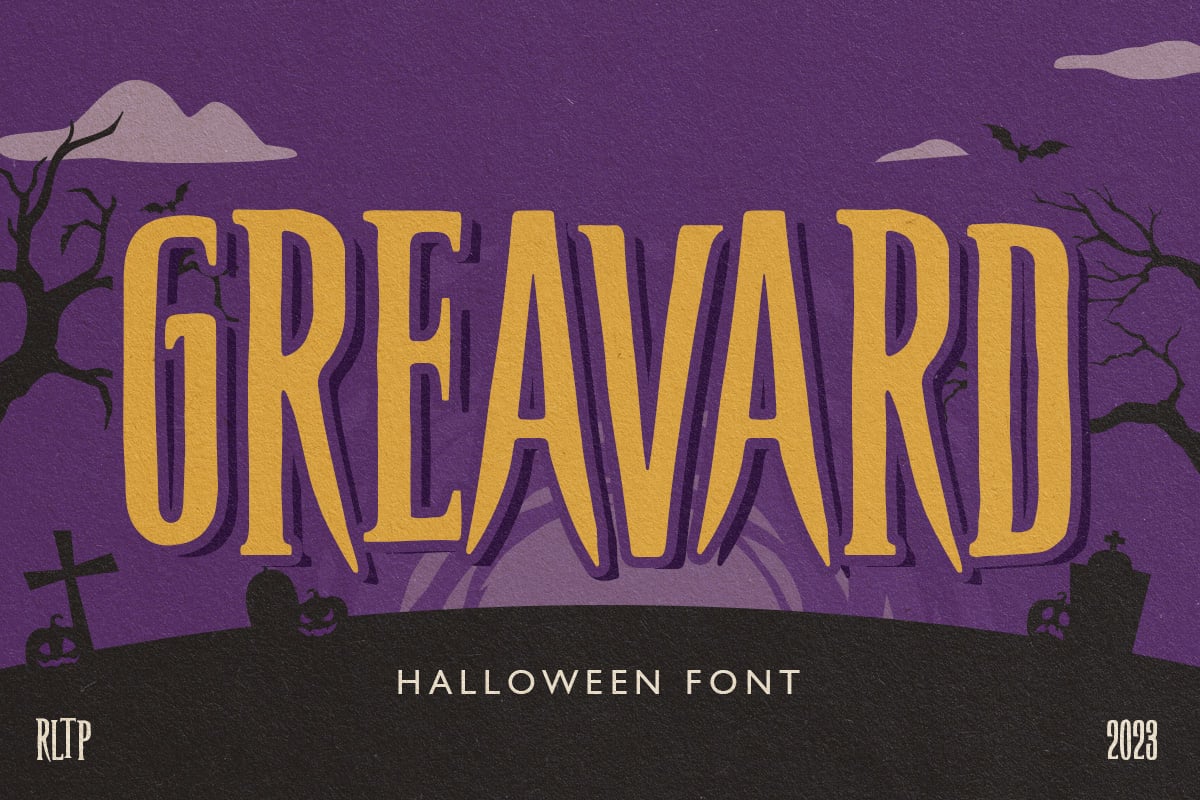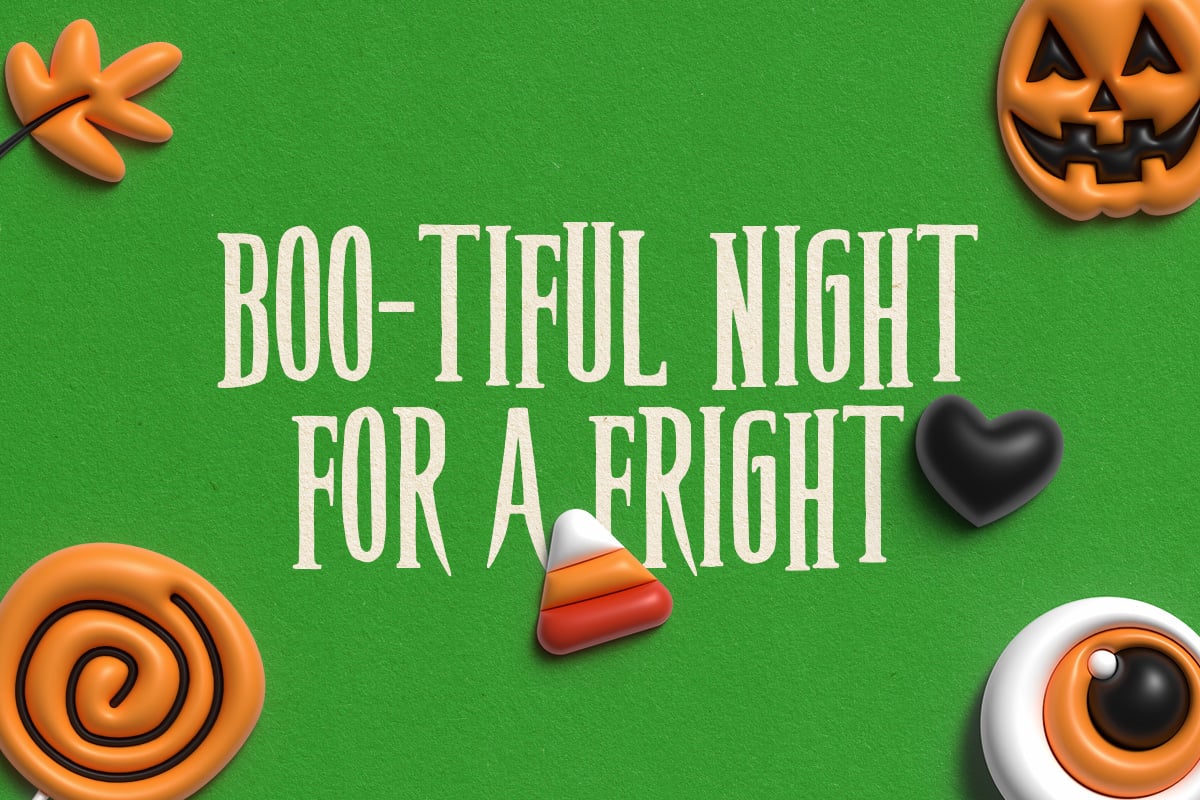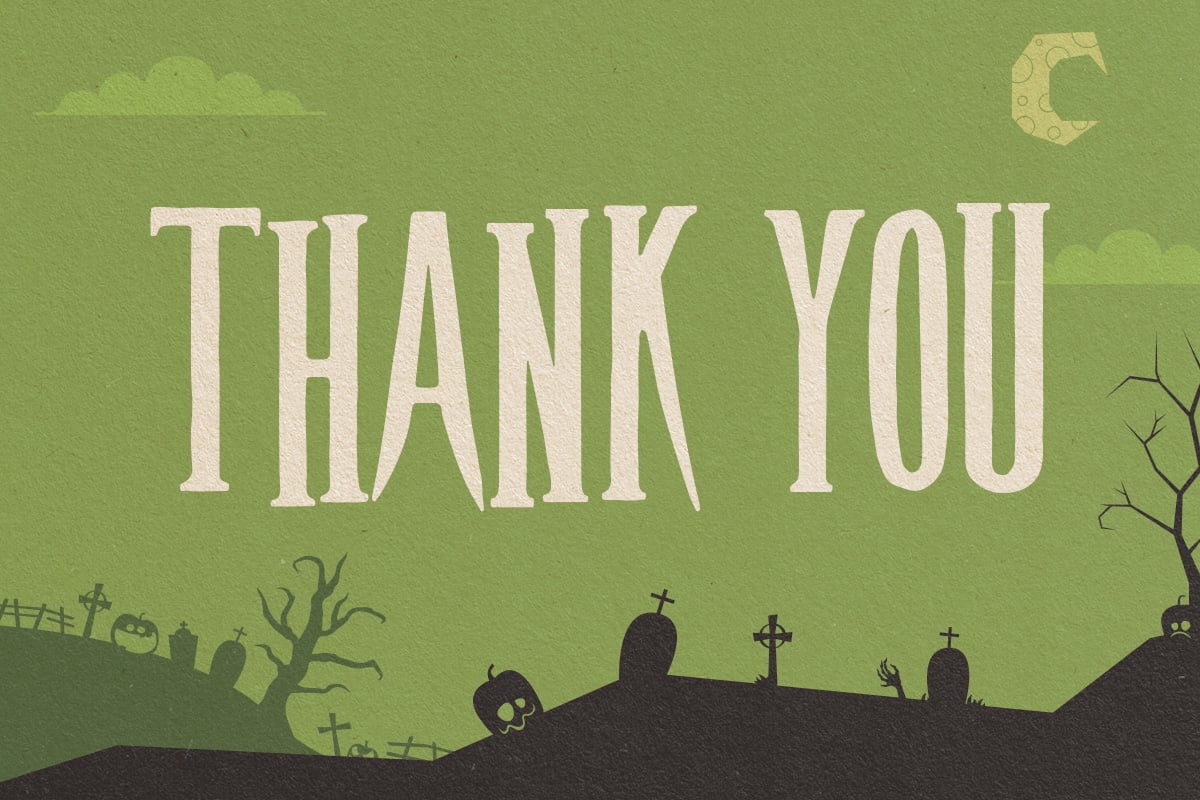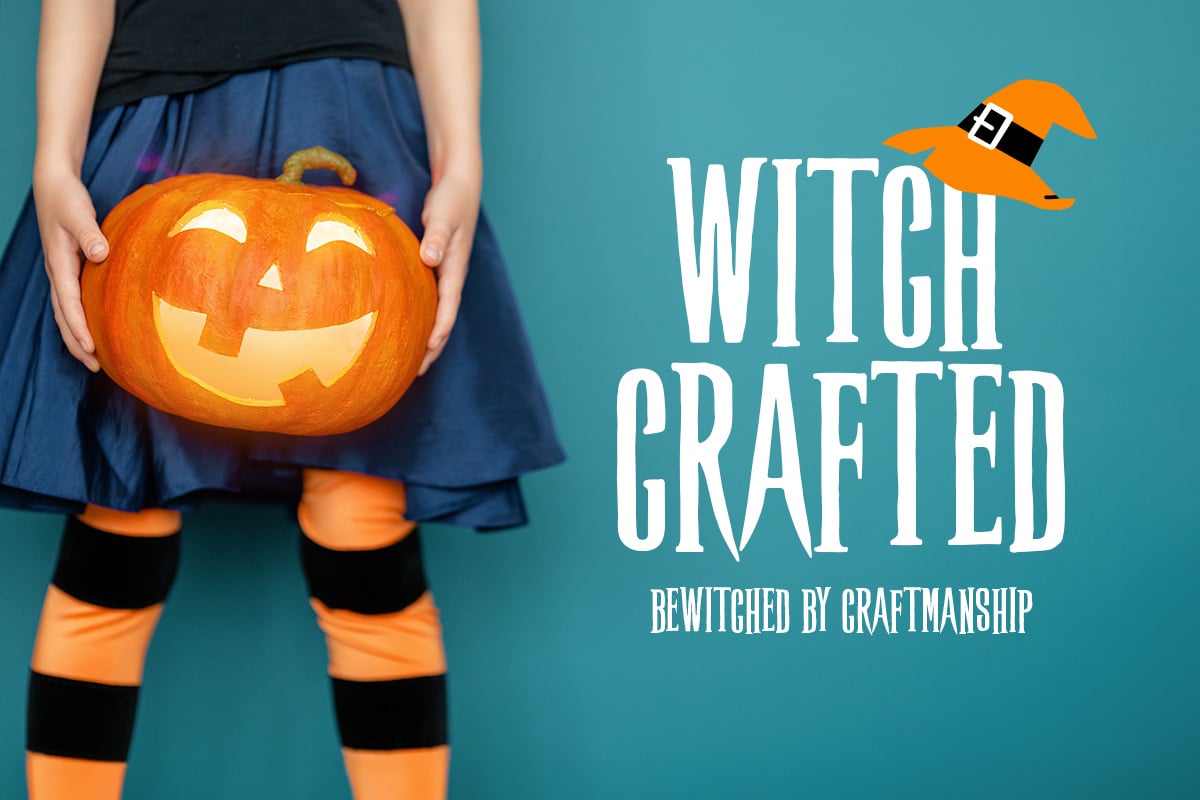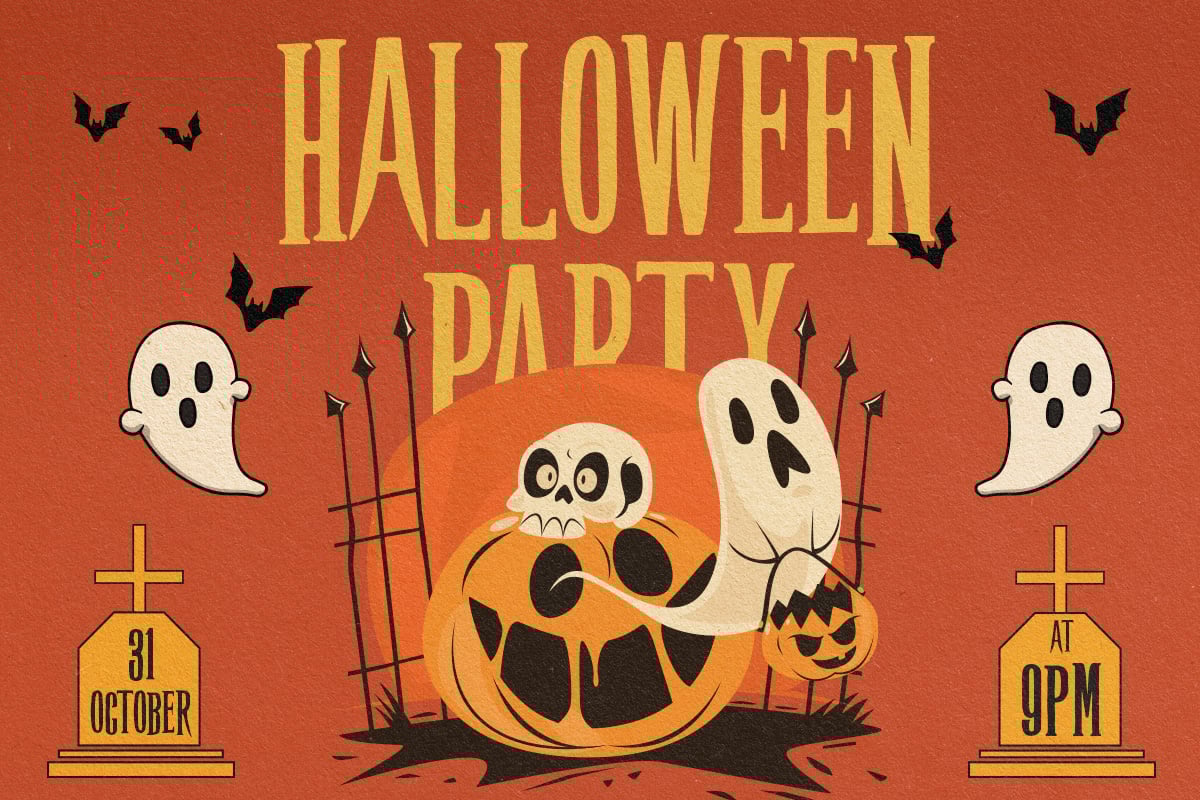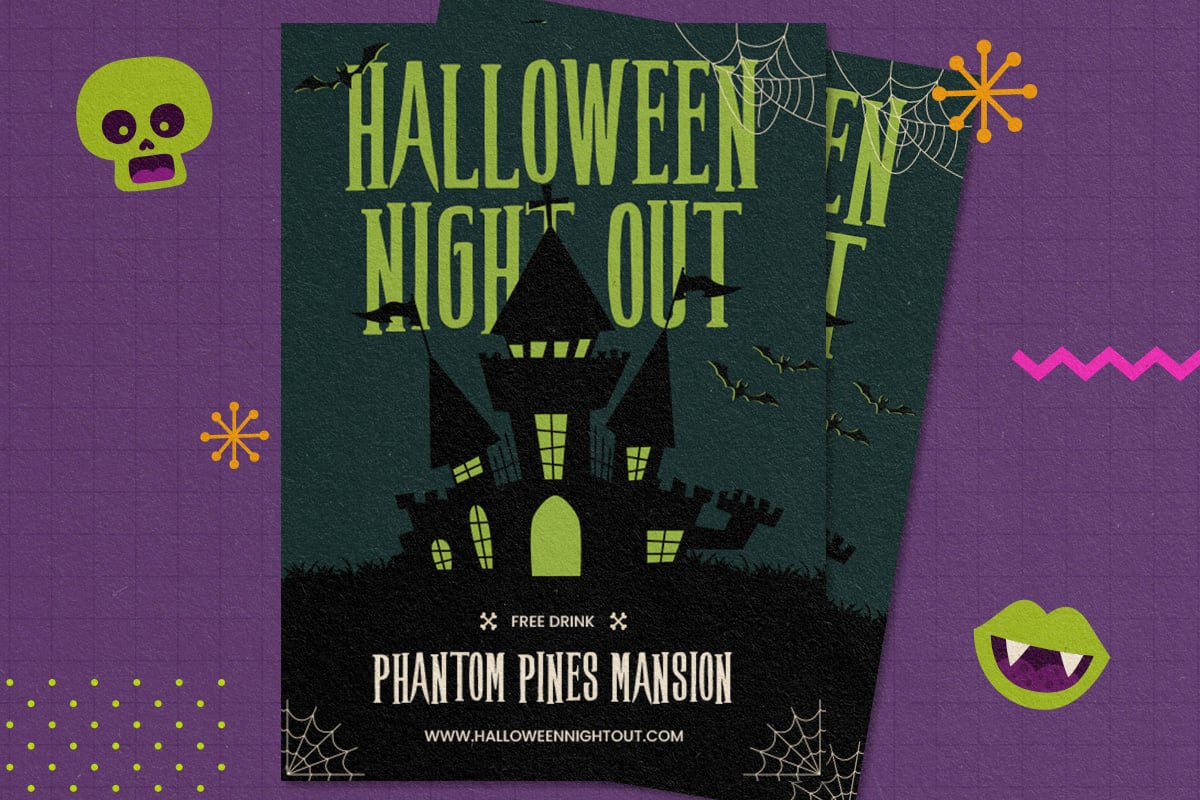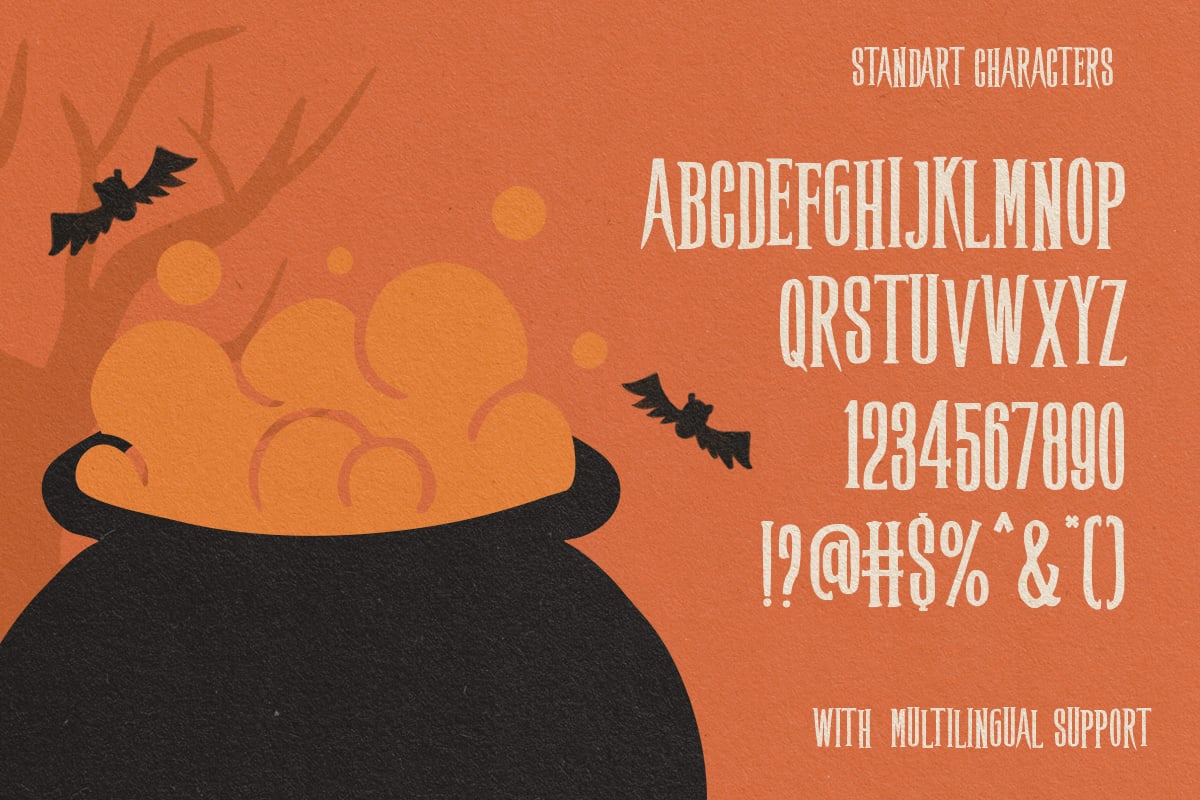
Gravard – Halloween Font
Introducing “Greavard,” the ultimate condensed serif font designed to add an eerie charm to your Halloween-themed projects. With its sophisticated design and Gothic undertones, “Greavard” is perfect for creating spine-tingling posters, invitations, and more. Dive into the realm of the supernatural and embrace the spirit of Halloween with “Greavard” – a font that captures the essence of the season. Get your copy today and let your creativity run wild as you craft bewitching designs that leave a lasting impression. Don’t wait; get “Greavard” now and make this Halloween unforgettable.